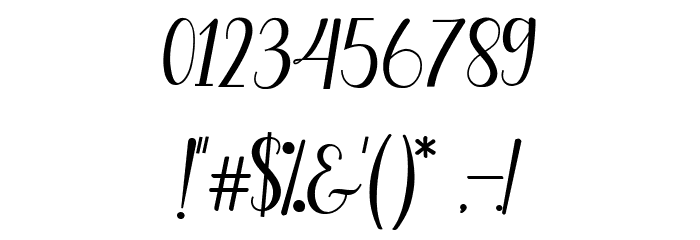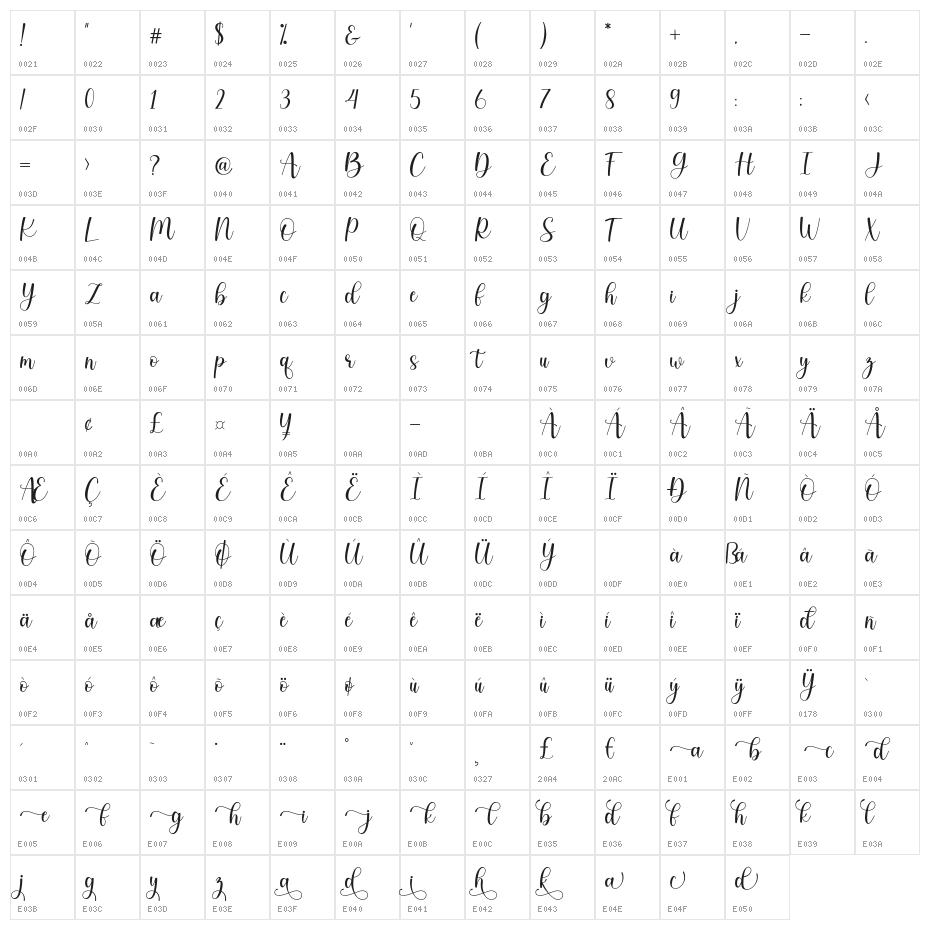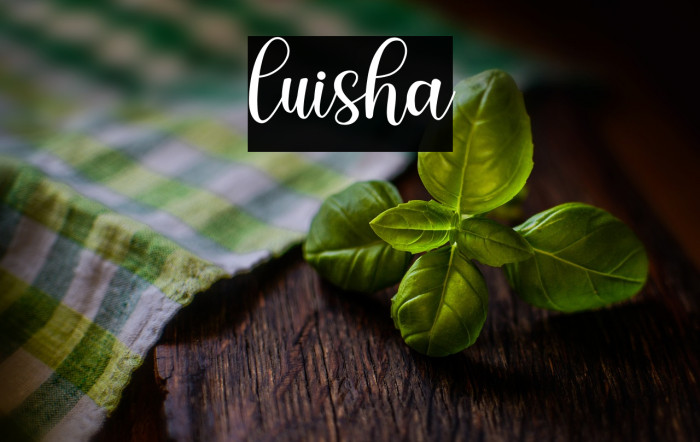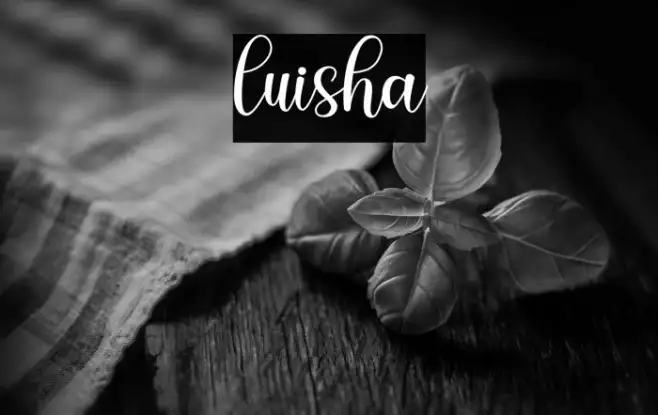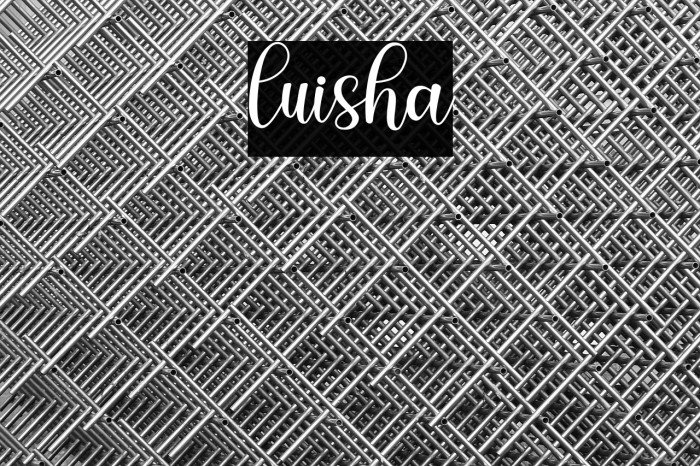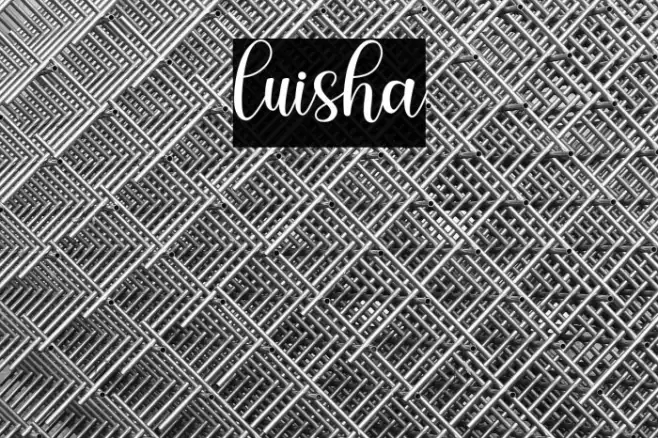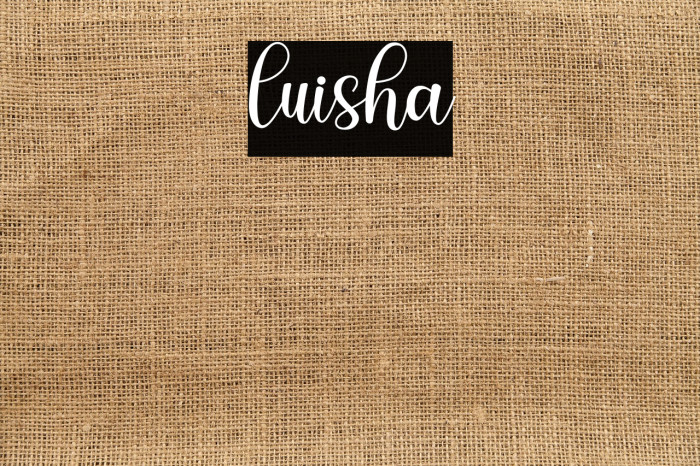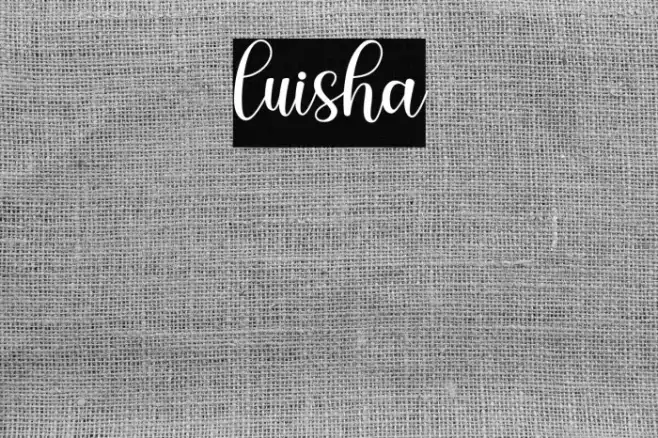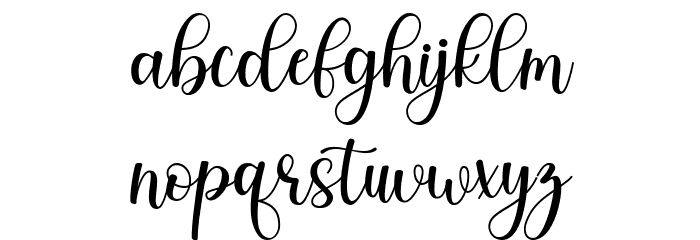
luisha Font
luisha Description
This font features an elegant and flowing script style, characterized by its smooth, cursive strokes and graceful loops. The uppercase letters are tall and slender, with a distinctive flair that adds a touch of sophistication. The lowercase letters maintain a consistent flow, enhancing readability while preserving the decorative nature of the script. Numbers and special characters are designed to match the overall aesthetic, ensuring a cohesive look across all text elements. This font is ideal for projects that require a personal and artistic touch, such as invitations, greeting cards, and branding materials.
| Proposed Projects | Ideal for wedding invitations, greeting cards, branding, and artistic projects. |